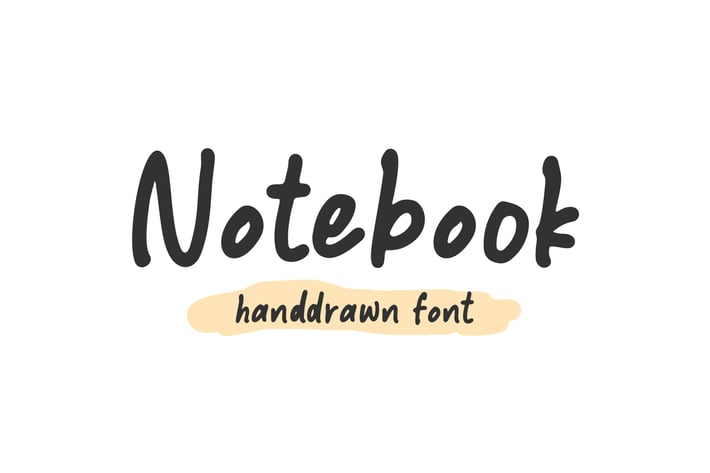
Notebook - Handdrawn Font
Introducing Notebook - Handdrawn Font, a new font with the style of the fun doodle and bold. Which is you can create a cute and fresh design.
Notebook is very suitable for logo design, kids t-shirts, birthday cards, cover books, magazines, flyers, quotes, packaging and of course much more.
This font comes in uppercase, lowercase, punctuations, symbols & numerals, ligatures, and multilingual support.